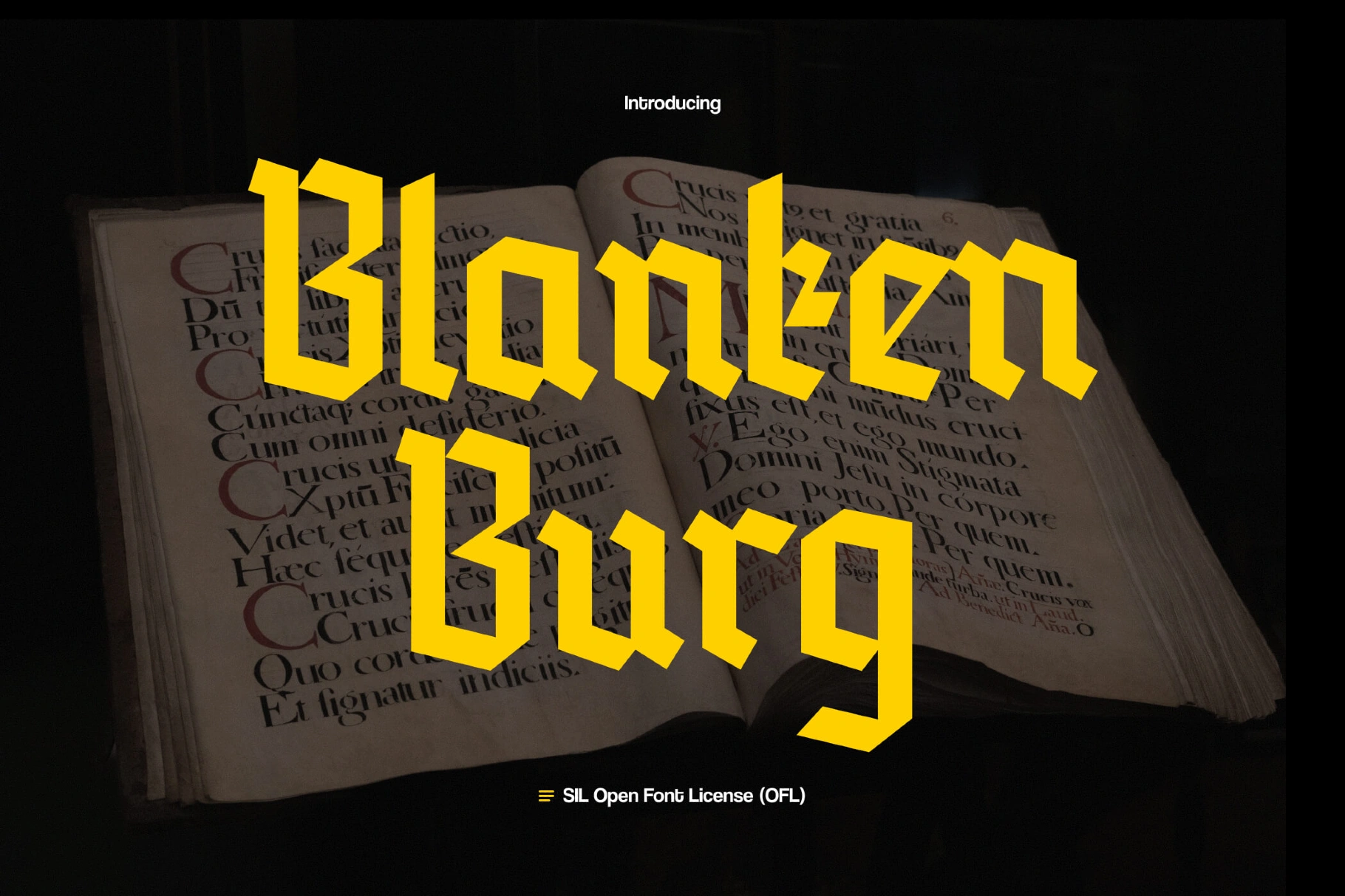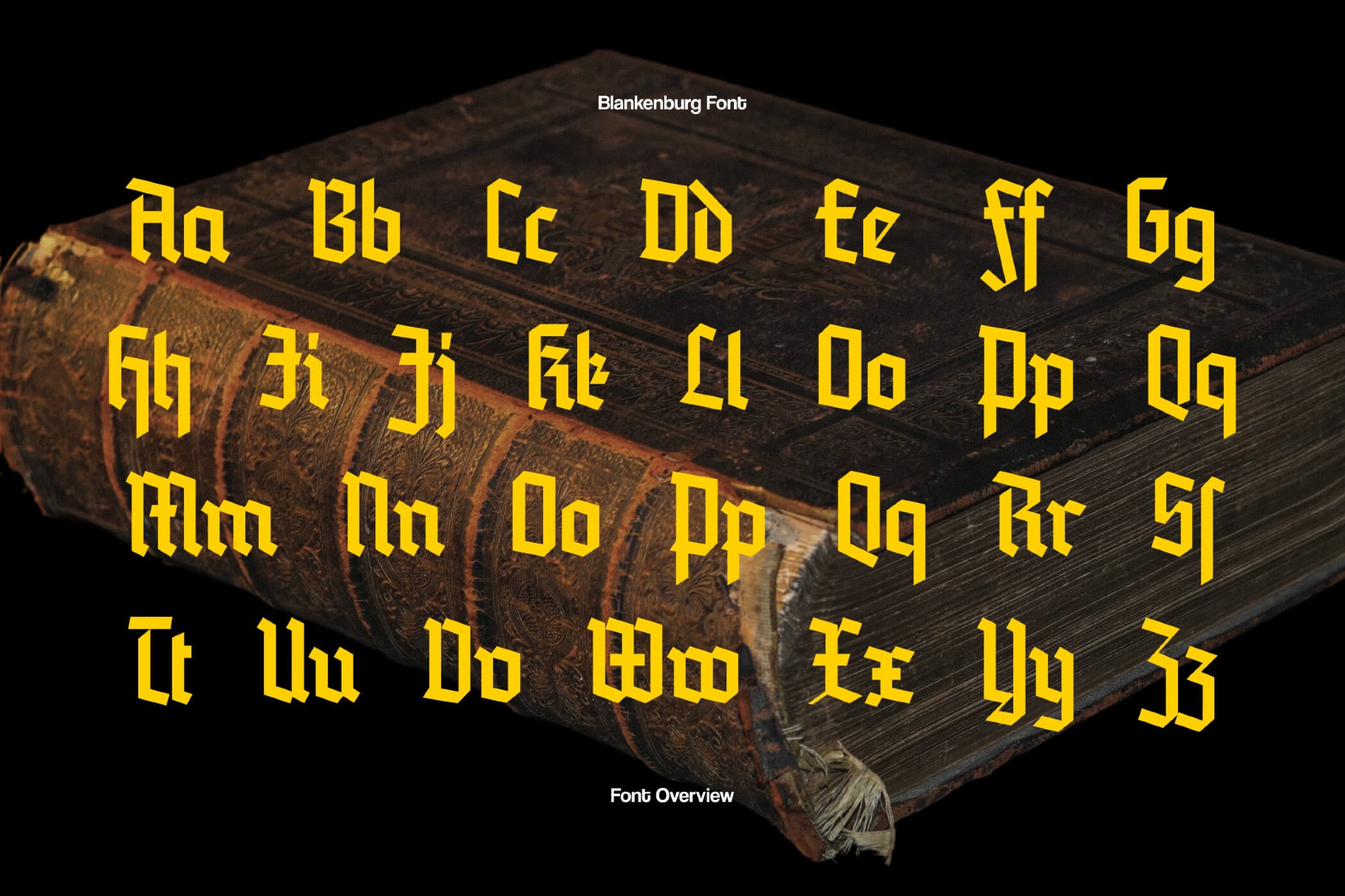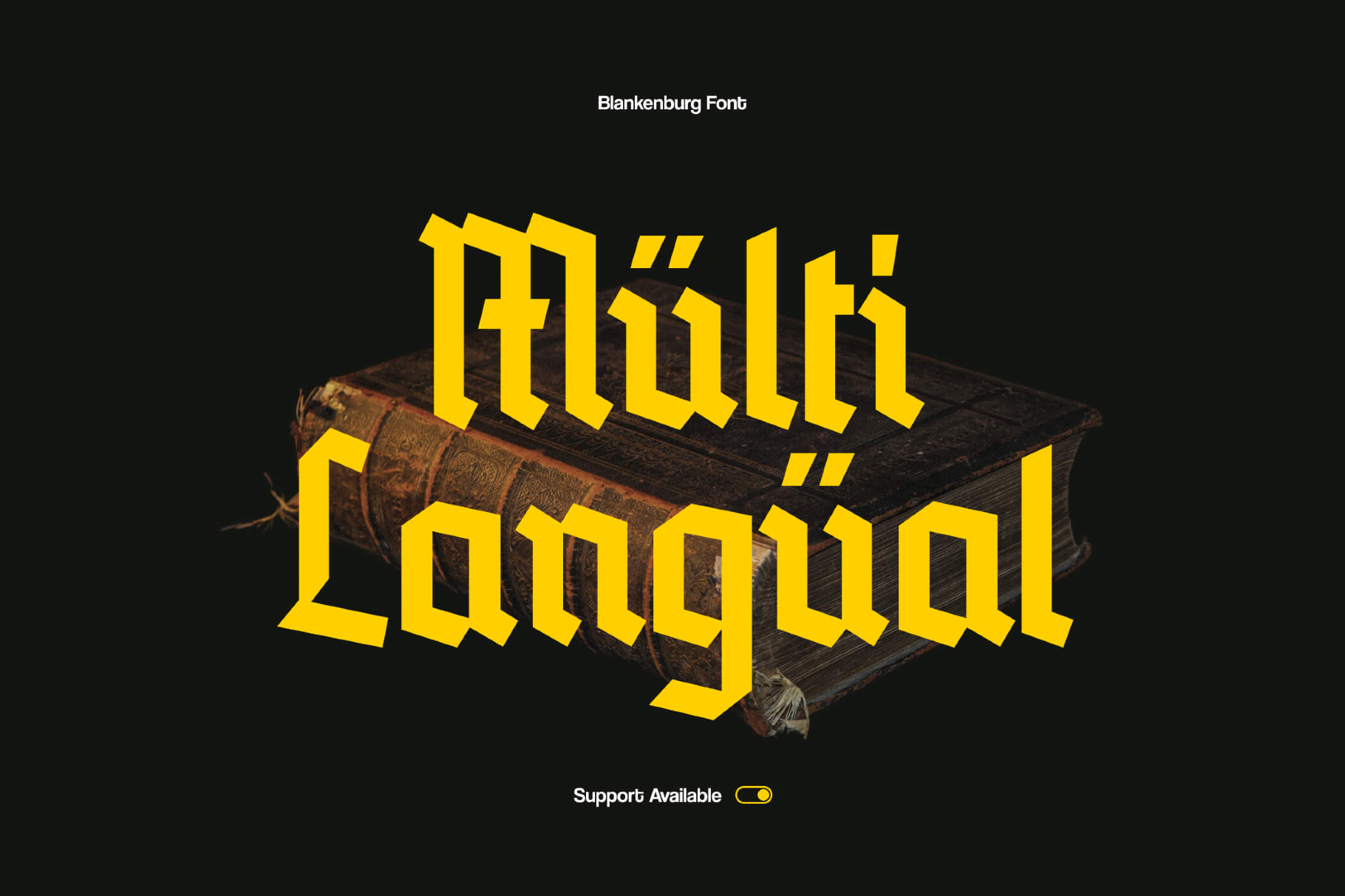
Blankenburg Blackletter Font
Blankenburg
Blankenburg Blackletter uses strong verticals, sharp corners, and faceted curves. It's feels compact and lively, with a slight forward push that suits headlines and logos. Generous counters and open forms keep the letters clear even at smaller display sizes.
Use it for football or fan-club branding, beer and schnapps labels, festival and fair posters, heritage-style restaurant or bar identities, bold crests for clubs and teams, packaging for snacks or streetwear accessories, and social graphics.